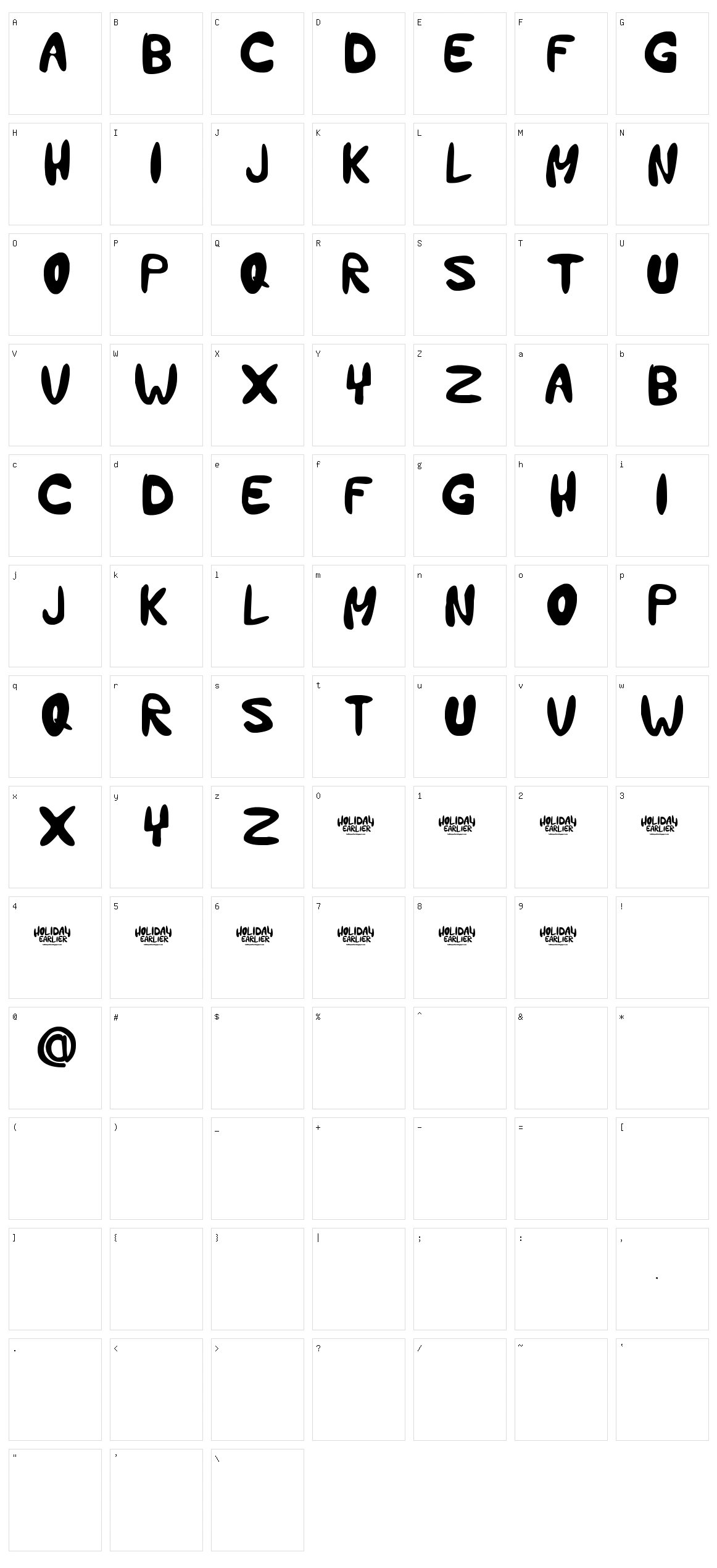
The free font Holiday Earlier is carefully designed by Holiday Earlier, showcasing a thoughtful balance of creativity and usability and falls under the Cartoon font style. When you download the ZIP file, it contains only 10.94 KB of font files, making it lightweight and quick to download. Please review the license details below to understand permitted usage and distribution rights. If license information is not available, we recommend using this font for personal projects only or contacting the author directly for commercial usage permissions.